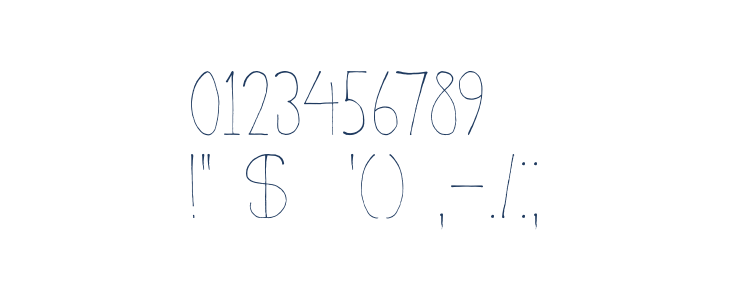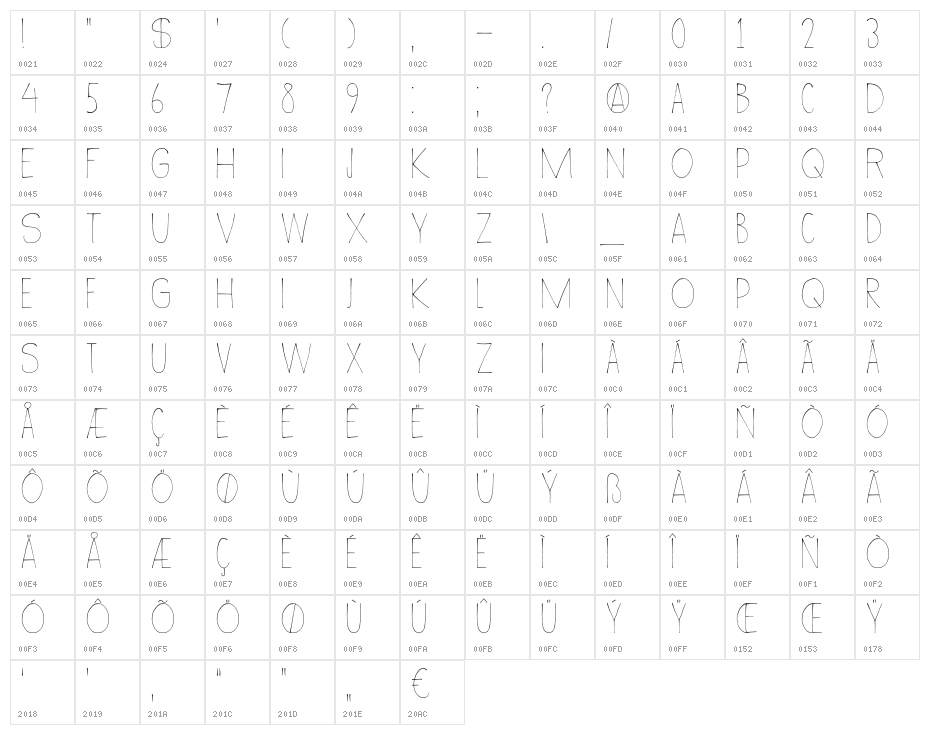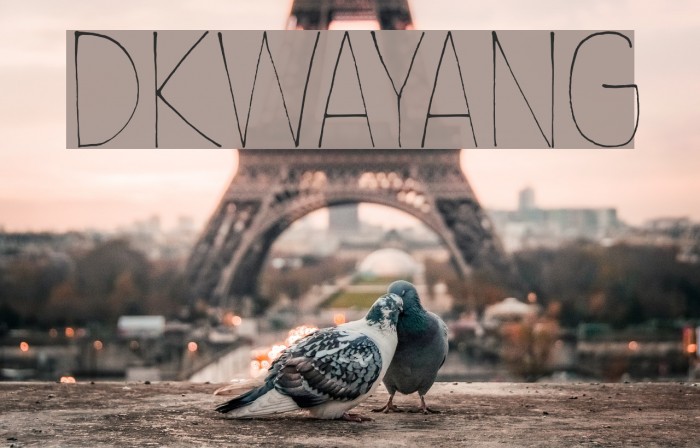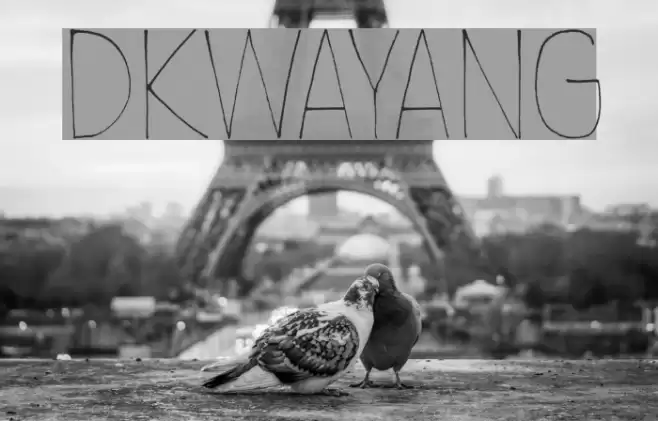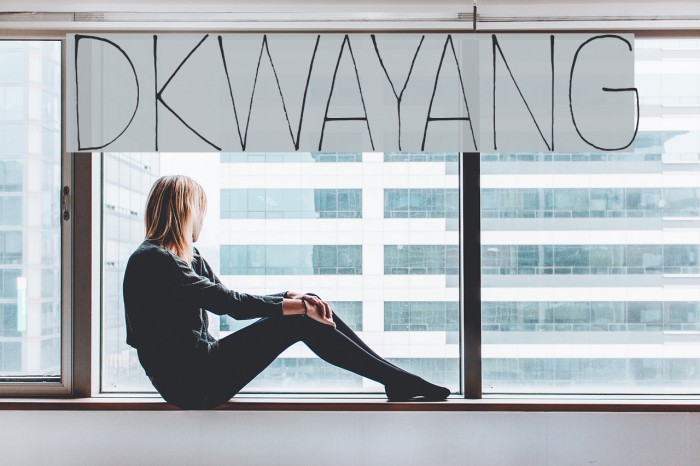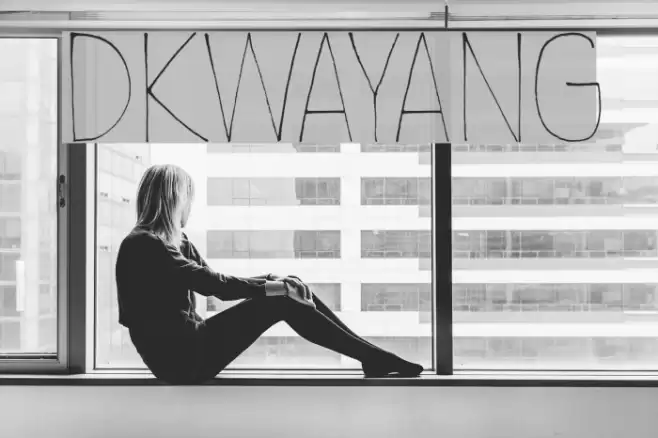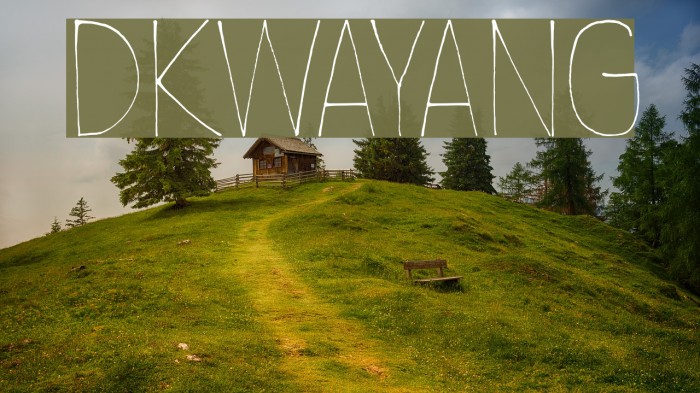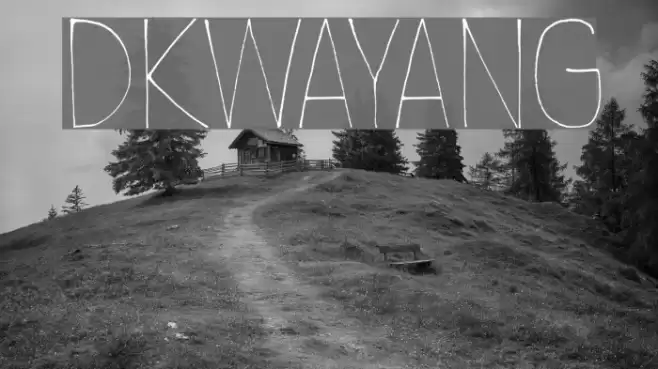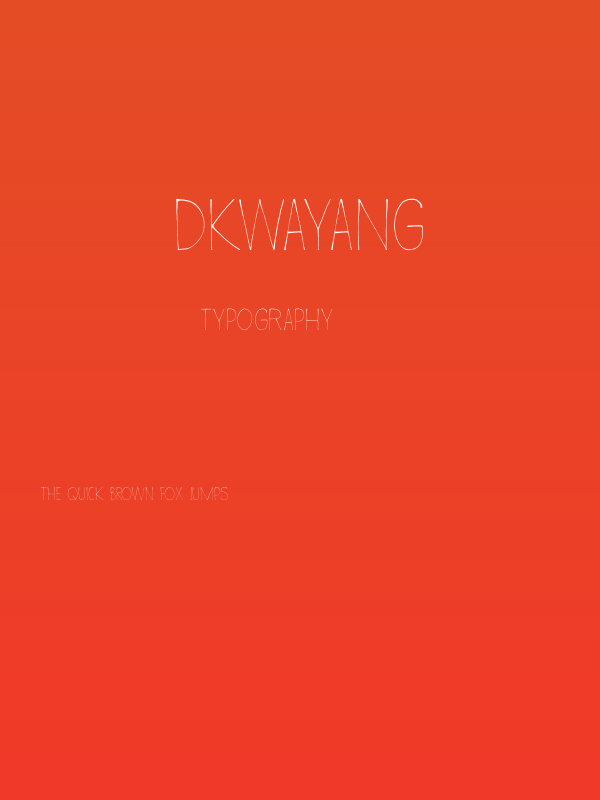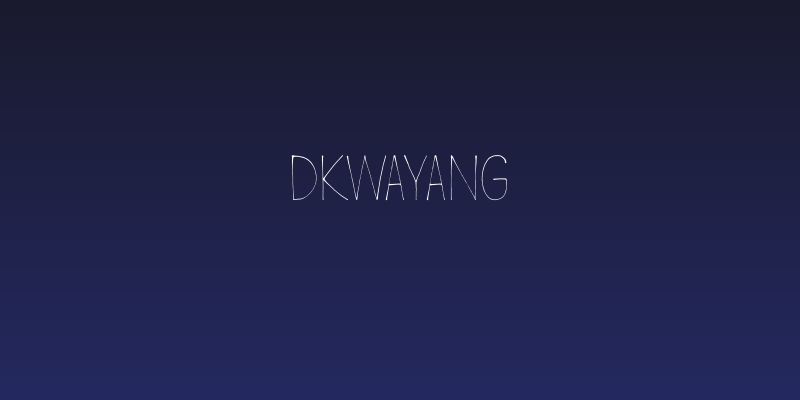
DKWayang Font
DKWayang Description
This font features a unique, hand-drawn style with a playful and artistic flair. The characters are tall and slender, with a slightly uneven stroke that adds to its handcrafted appearance. The uppercase and lowercase letters maintain a consistent height, creating a uniform look across the text. The numbers are similarly styled, with a quirky, informal touch that complements the overall design. Special characters are included, maintaining the same whimsical aesthetic. The font's thin lines and irregularities give it a distinctive personality, making it suitable for creative and artistic projects.
| Use Case | Headlines, Artistic projects, Invitations |
| Proposed Projects | Ideal for creative projects such as invitations, posters, and artistic branding materials. |